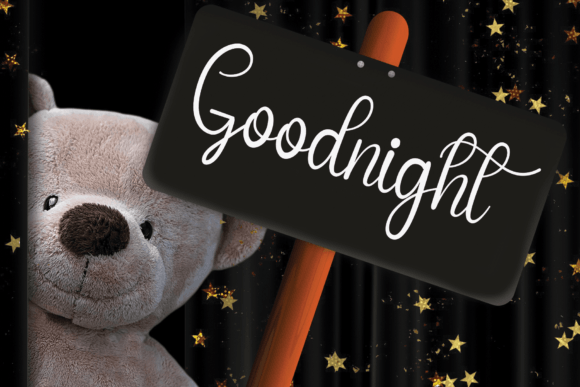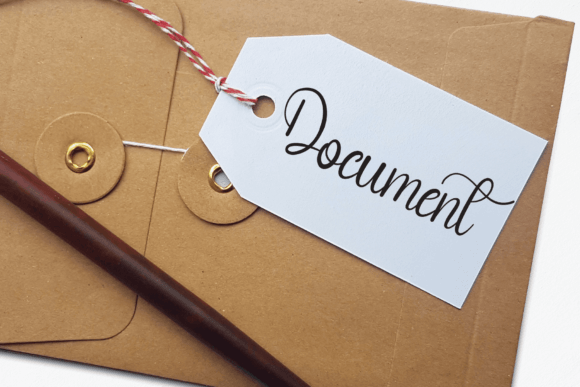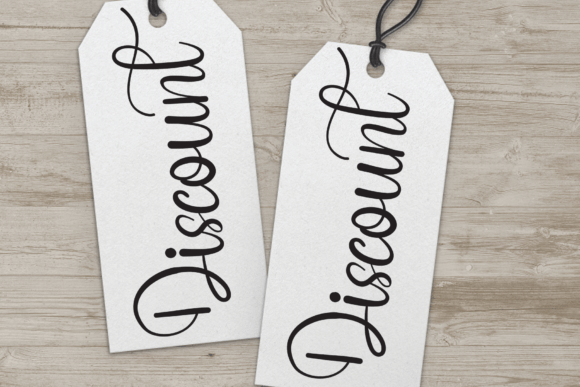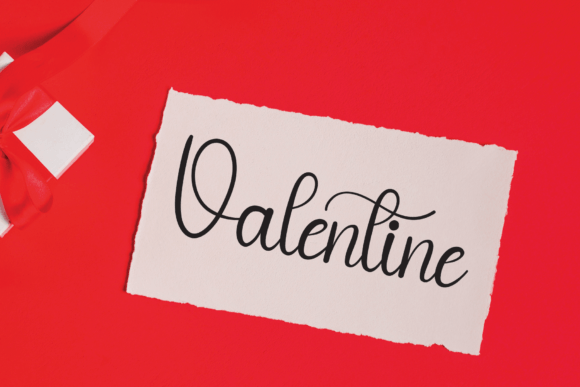
About Outside Font
“Outside” is a captivating script font that blends a modern and unique shape with a naturally flowing writing style. This font provides a versatile platform for effortlessly creating beautiful typographic designs, making it an excellent choice for a variety of applications, including branding, web design, editorial work, prints, crafts, and quotes.
The modern and distinctive shape of “Outside” adds a contemporary and eye-catching flair to your designs. Its natural writing style imparts an authentic touch, making it well-suited for a range of creative projects. Whether you’re working on logotypes, wedding invitations, romantic cards, labels, packaging, or personalizing names, “Outside” infuses your designs with a touch of elegance.
The versatility of “Outside” is evident in its ability to adapt to different design contexts. It is an ideal choice for creating memorable and expressive logotypes that leave a lasting impact. Additionally, its charm makes it perfect for designing wedding invitations, where a sense of sophistication and uniqueness is highly desirable.
“Outside” effortlessly brings your most creative ideas to life. From the world of branding to the intricacies of crafting romantic cards, this font adds a special and refined touch to your projects. Witness how it transforms your designs, making them visually appealing and authentically expressive.
Embrace the versatility and beauty of “Outside” as you embark on your creative journey. Whether you’re designing for digital platforms or crafting tangible items, this font serves as a reliable companion, ready to elevate your typographic designs to new heights.